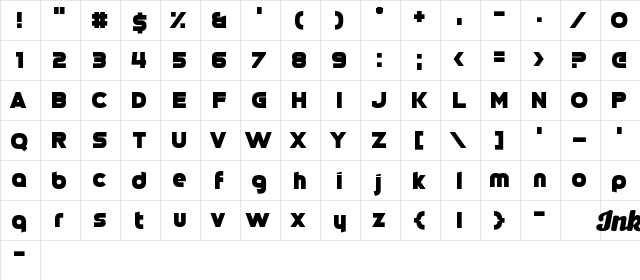
Cinqcent Regular Font Preview
Cinqcent Regular
Cinqcent Regular Font Details
| Designer | NAL |
Design Context for Cinqcent Typeface
Cinqcent offers clean, dependable letterforms without strong stylistic allegiance, making it a practical choice for designers who need flexibility.